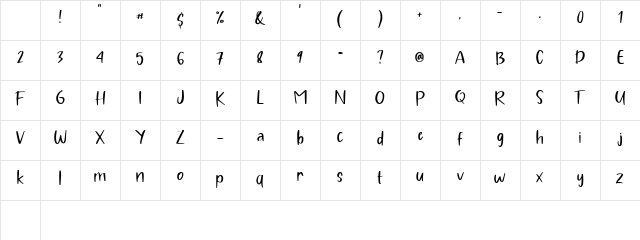
Complete Pig Year Display Regular glyph index. Displaying only characters natively supported by Pig Year Display Regular font.
Pig Year Display is built around its visual character rather than neutral utility - its distinctive forms are designed to make an impression at display sizes.
Font Pairing: Pair with a clean neutral sans-serif for body copy to let Pig Year Display's character lead without overwhelming the composition.
Pro Tip: Use Pig Year Display exclusively at display sizes - it was designed to be seen, not read at length. Let a neutral companion handle body copy.